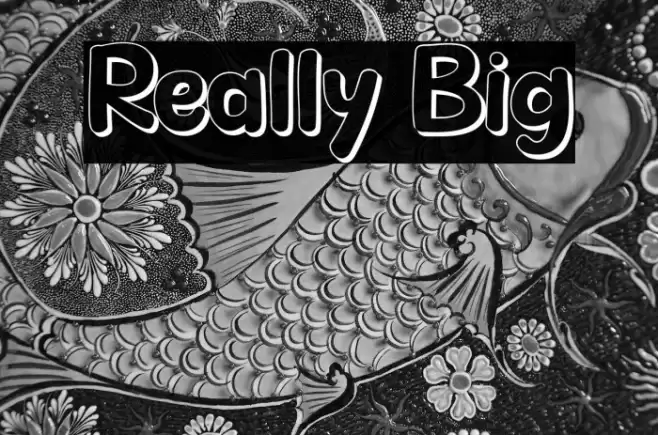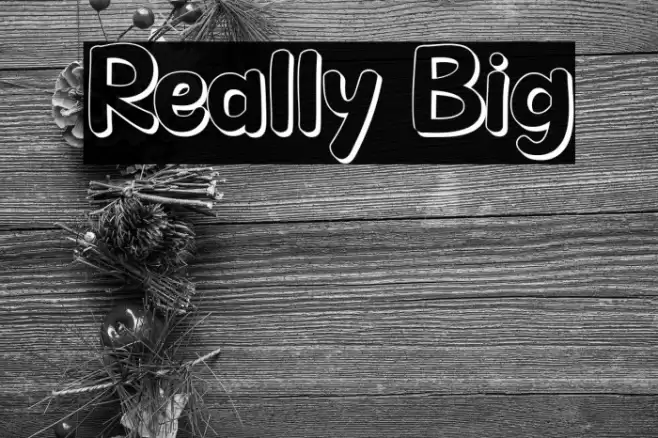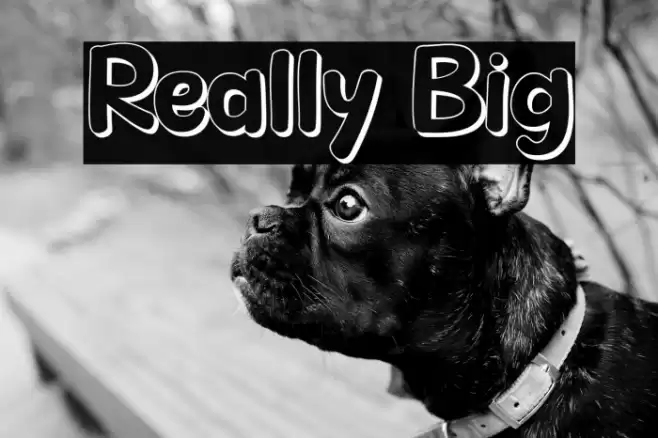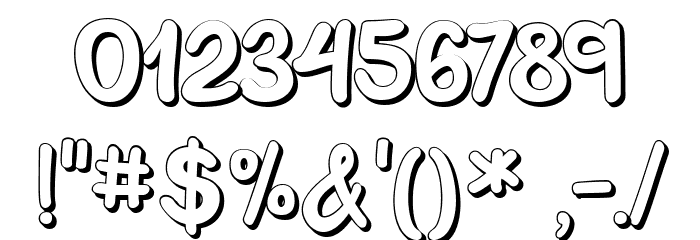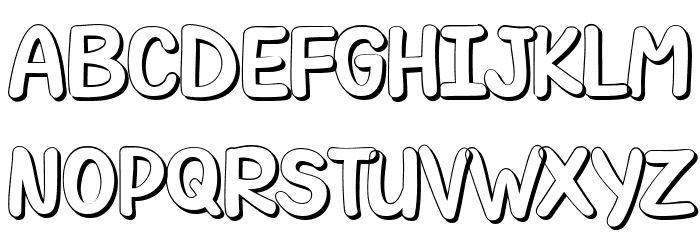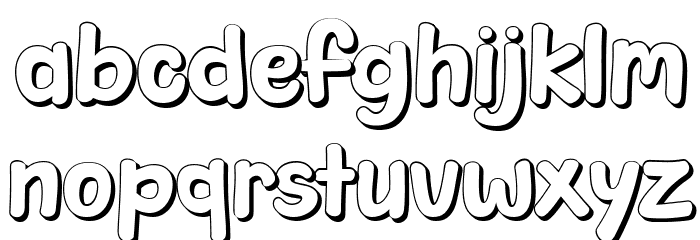
Really Big Font
Really Big Description
This playful and bold font features a bubble-like, outlined style that gives each character a sense of volume and depth. The letters are rounded and have a hand-drawn appearance, making them feel approachable and fun. The uppercase and lowercase letters maintain a consistent style, with the uppercase being slightly larger and more pronounced. Numbers and special characters follow the same design, ensuring a cohesive look across all text elements. The font's unique outline adds a layer of distinction, making it stand out in any design.
A playful, outlined font with a bubble-like, hand-drawn style from Uncategorized fonts.
- Proposed Projects: Ideal for children's books, playful branding, party invitations, and casual posters.
- Overall Style: Playful, Fun, Casual